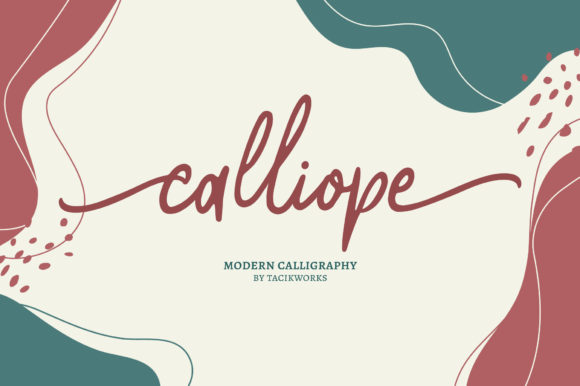
Introducing Calliope Script, the whimsical and enchanting font that will bring your words to life. Immerse yourself in the world of creativity, where self-expression knows no bounds. With Calliope's charming personality and disarmingly friendly nature, you'll craft designs that radiate warmth and authenticity.
Step into a realm where imagination thrives, where every letter dances with a unique flair. Calliope embraces the art of handwritten beauty, adding a touch of playfulness to your creations. Let your words flow effortlessly, like the gentle stroke of a calligraphy pen, leaving an indelible mark of artistry wherever they land.
Unleash Calliope's boundless versatility and watch as your creative visions take flight. Whether you're crafting eye-catching social media posts, designing heartfelt greeting cards, or adding a touch of elegance to your resume, Calliope will be your steadfast companion. Its graceful curves and playful character add a dash of personality to any project, leaving a lasting impression that captivates and inspires.
Indulge in the joy of personalization and make Calliope your own. With a wide array of customization options, you can tailor the font to perfectly match your style and vision. Adjust the thickness of the strokes, add a touch of color, or experiment with different letter combinations to create something truly unique. Let Calliope be your muse and watch as your creative dreams transform into tangible masterpieces.
Step into the spotlight and let Calliope be your secret weapon. Its innate charm and undeniable style will elevate your designs to new heights, making your projects stand out from the crowd. Whether you're a seasoned designer or just starting your creative journey, Calliope will empower you to create designs that resonate with your audience, leaving them spellbound and eager for more.
Don't let mediocrity hold you back. Embrace the transformative power of Calliope and unlock your creative potential. Join the ranks of creative visionaries who have discovered the magic of Calliope, and let your imagination run wild. Elevate your designs, captivate your audience, and leave a lasting legacy of beauty and creativity.